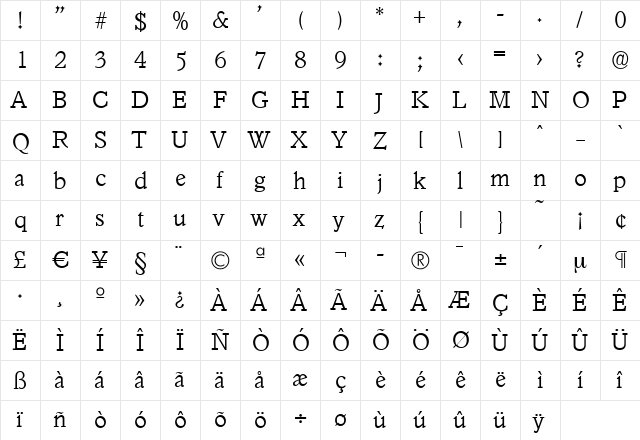
ColinBecker-ExtraLight Regular
Design Context for ColinBecker-ExtraLight Typeface
ColinBecker-ExtraLight takes a measured approach to typography — its balanced proportions and neutral character make it a reliable workhorse for both digital and print work. The delicate stroke weight brings airiness and refinement to layouts.